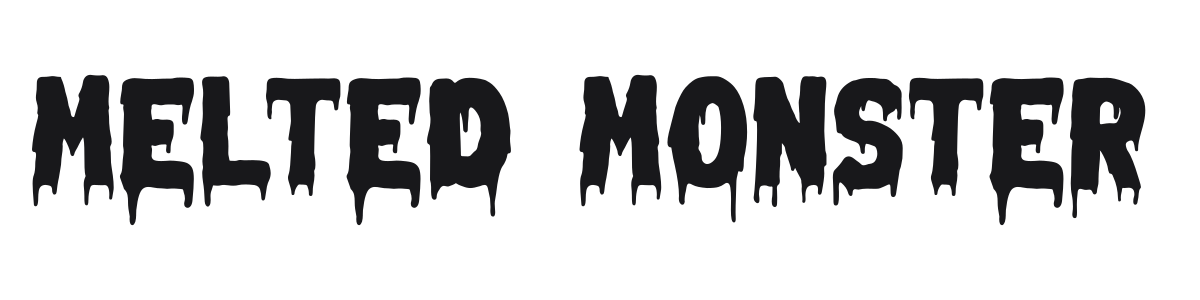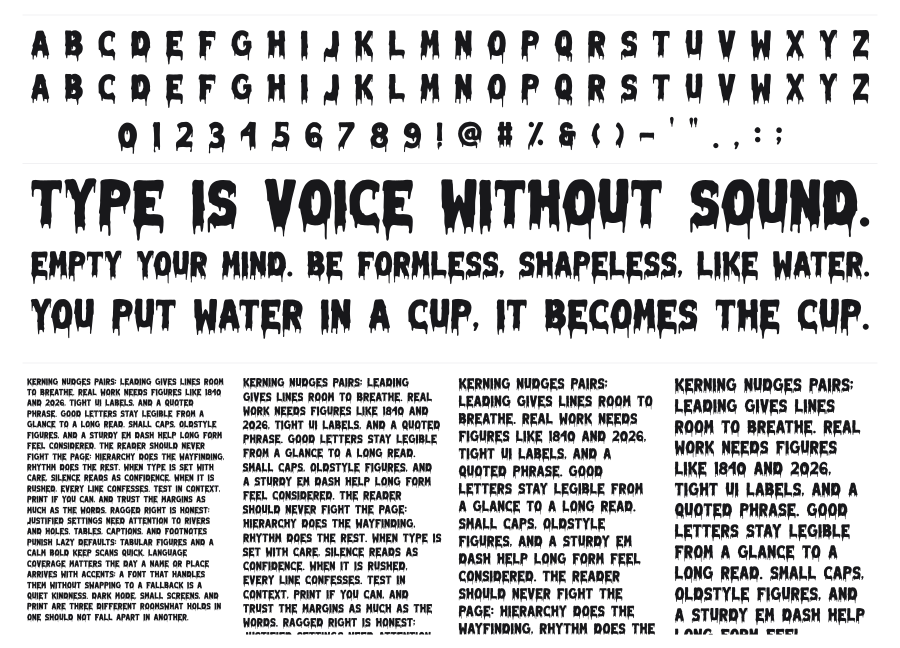
Melted Monster
Melted Monster is a bold Halloween display font with prominent dripping effects that make each character look like it's dissolving. The thick, wide letterforms carry a hand-painted horror quality rooted in monster-movie and comic-book tradition. It works best at large sizes for posters, event flyers, and seasonal branding.